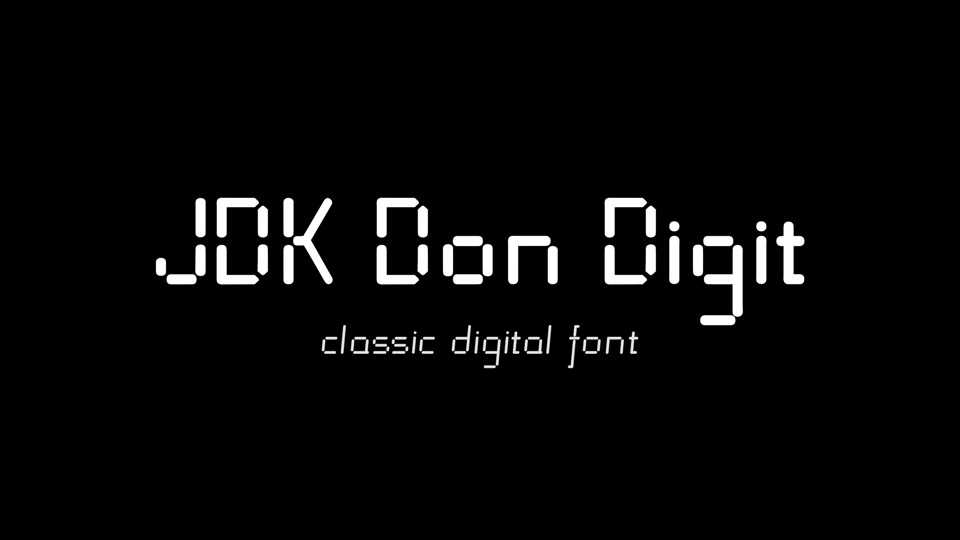
JDK Don Digit Font › Fontesk
Download JDK Don Digit font, a classic digital typeface like a watch. Good, for example, as the speech of robots. Lowercase and uppercase letters, 4 styles in total: regular, italic, bold and bold italic.
Designer: Jakub D. Kočí